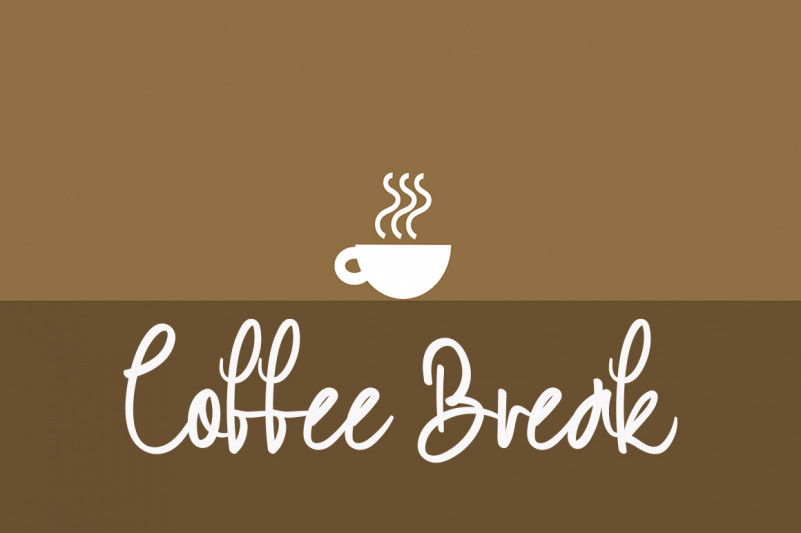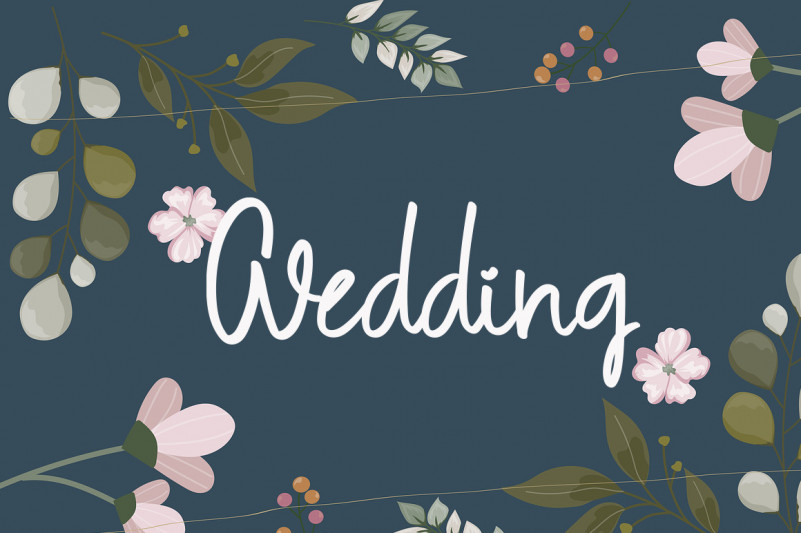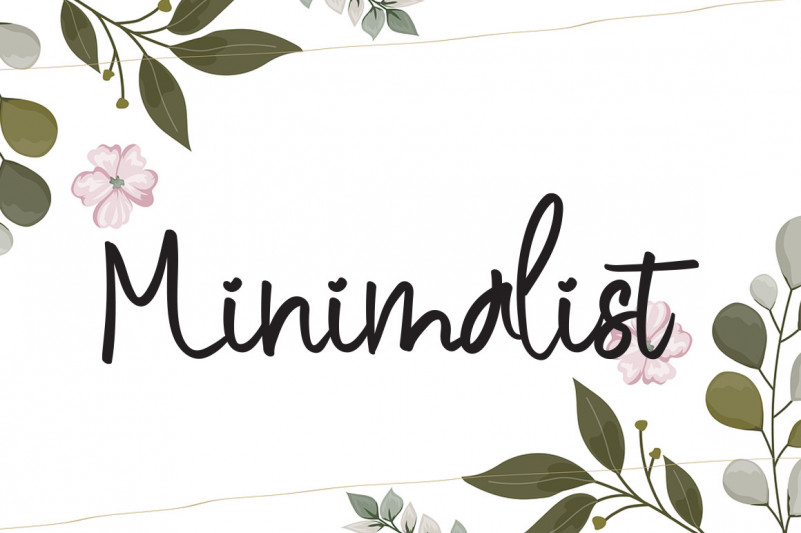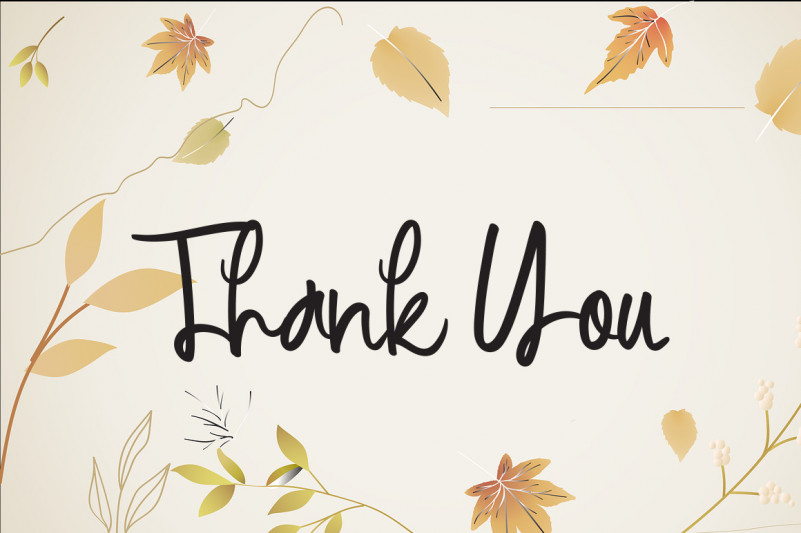
Simple Sunflower Font
This is an equally lovely and cursive handwritten font that’s great for delivering any message with confidence, authenticity and charm. It will elevate a wide range of crafting ideas, from cards, to branding, labels and much more.